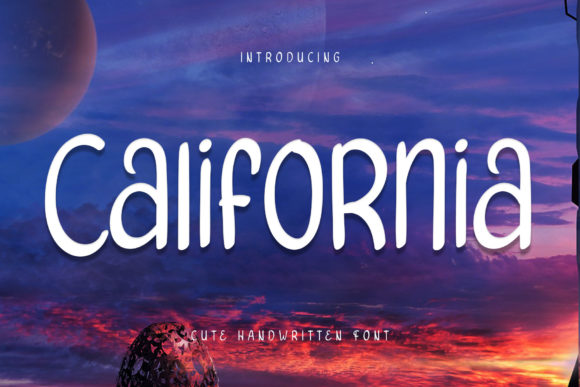
About California Font
California is a simple and neat handwritten font. Its natural and unique style makes it incredibly fitting to a large pool of designs. The only limit is your imagination!